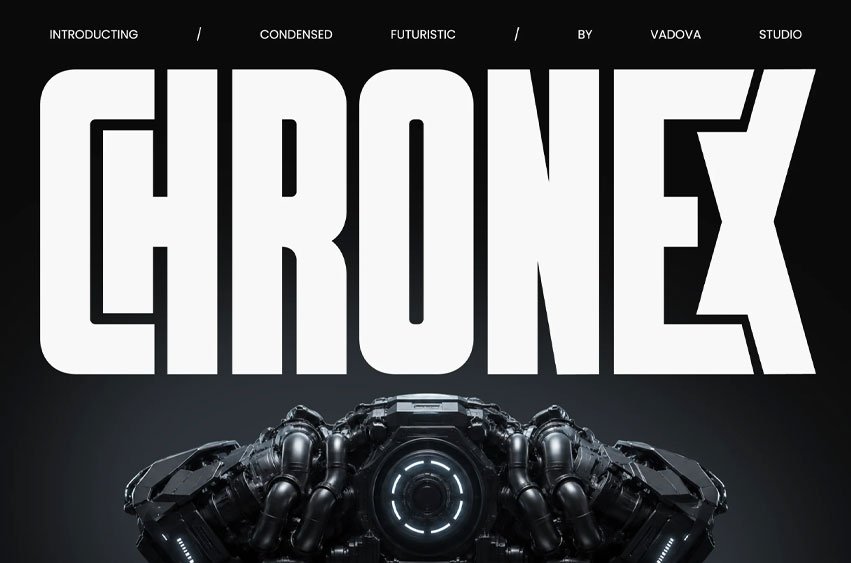
Chronex Font presents a bold sci-fi inspired display typeface with ultra-condensed proportions, geometric construction, and powerful industrial aesthetics. The font includes uppercase and lowercase characters, numerals, punctuation, and futuristic stylistic details designed for strong visual impact across digital and print media. Its sharp edges, tall structure, and modern techno appearance create an aggressive and high-tech identity suitable for gaming, automotive branding, cyberpunk visuals, movie posters, esports graphics, and futuristic advertising layouts.
Relevance & Use Cases is highly relevant for futuristic branding, gaming visuals, esports promotions, cyberpunk posters, automotive campaigns, technology products, sci-fi movie graphics, and modern industrial design projects. Its condensed futuristic structure creates strong visual authority for logos, headlines, user interfaces, digital advertisements, streaming graphics, album covers, and promotional posters.
Main Features
- Uppercase & Lowercase characters
- Numeral & Punctuations
- Ligature Support